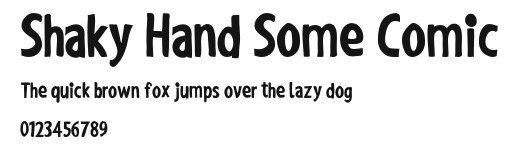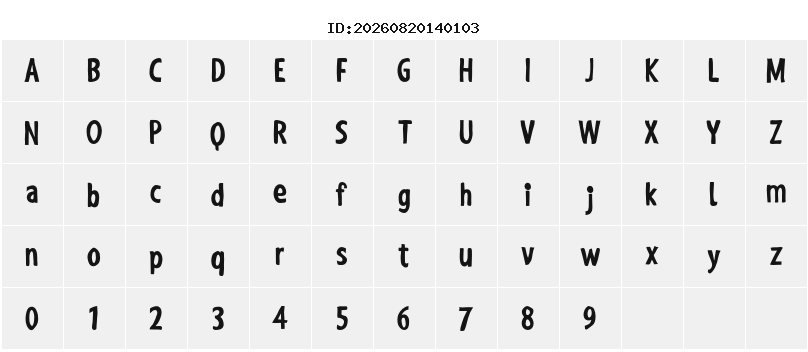
• Font Name: Shaky Hand Some Comic
• Designer: Manuel Viergutz
About Shaky Hand Some Comic.otf
Shaky Hand Some Comic.otf is a modern, elegant sans-serif font designed for ultimate readability and visual harmony. Perfect for branding, headlines, web design, and print materials.